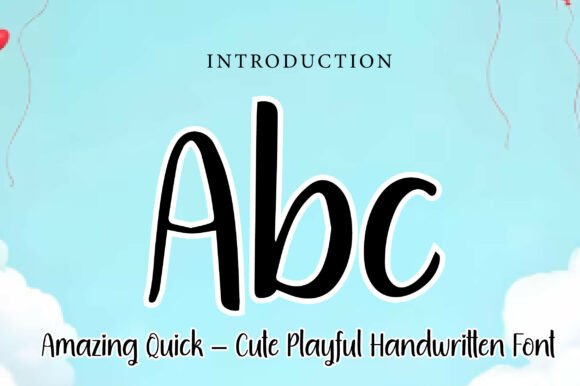
Discover the Delightful World of Amazing Quick Font
I’ll never forget the time I was working on a children’s book project, and my client asked me to create a custom font that would make their story feel more approachable and fun. I was determined to find the perfect solution, but my search led me down a rabbit hole of font options that were either too serious or too quirky. That’s when I stumbled upon Amazing Quick – a lovable, frolicsome handwritten font that instantly captured the playful essence of the project.
First Impressions: A Font that Stands Out
Amazing Quick is more than just a font – it’s a design companion that brings a sense of joy and whimsy to any project. Its playful text style is adorned with endearing details, making it the ultimate choice for children’s designs, brand identity, event invites, fascinating packaging, and jovial artistic endeavors. Whether you’re a designer, crafter, or creative hobbyist, this font is sure to set your typography apart in a sweet, unforgettable fashion.
So, what makes Amazing Quick so special? Here are a few things I love about this font:
- ✨ Friendly and approachable feel that’s perfect for children’s designs and brand identity
- 🎉 Unique and playful details that add a touch of whimsy to any project
While Amazing Quick is an excellent font, it’s not without its quirks. Here are a few things to keep in mind:
- ⚠️ Limited availability of stylistic alternates, which may limit design flexibility
The Story Behind Amazing Quick
Amazing Quick was designed by a talented typographer who wanted to create a font that would bring joy and whimsy to design projects. With its playful details and friendly feel, Amazing Quick is the perfect choice for designers and crafters who want to add a touch of personality to their work.
| Font Name | Amazing Quick Font |
| What type of projects is Amazing Quick best suited for? | Amazing Quick is perfect for children’s designs, brand identity, event invites, packaging, and artistic projects that require a friendly, approachable feel. |
| Is Amazing Quick available in different font weights? | Currently, Amazing Quick is available in a single font weight. However, the font’s versatility and range of stylistic alternates make it suitable for a wide range of design applications. |